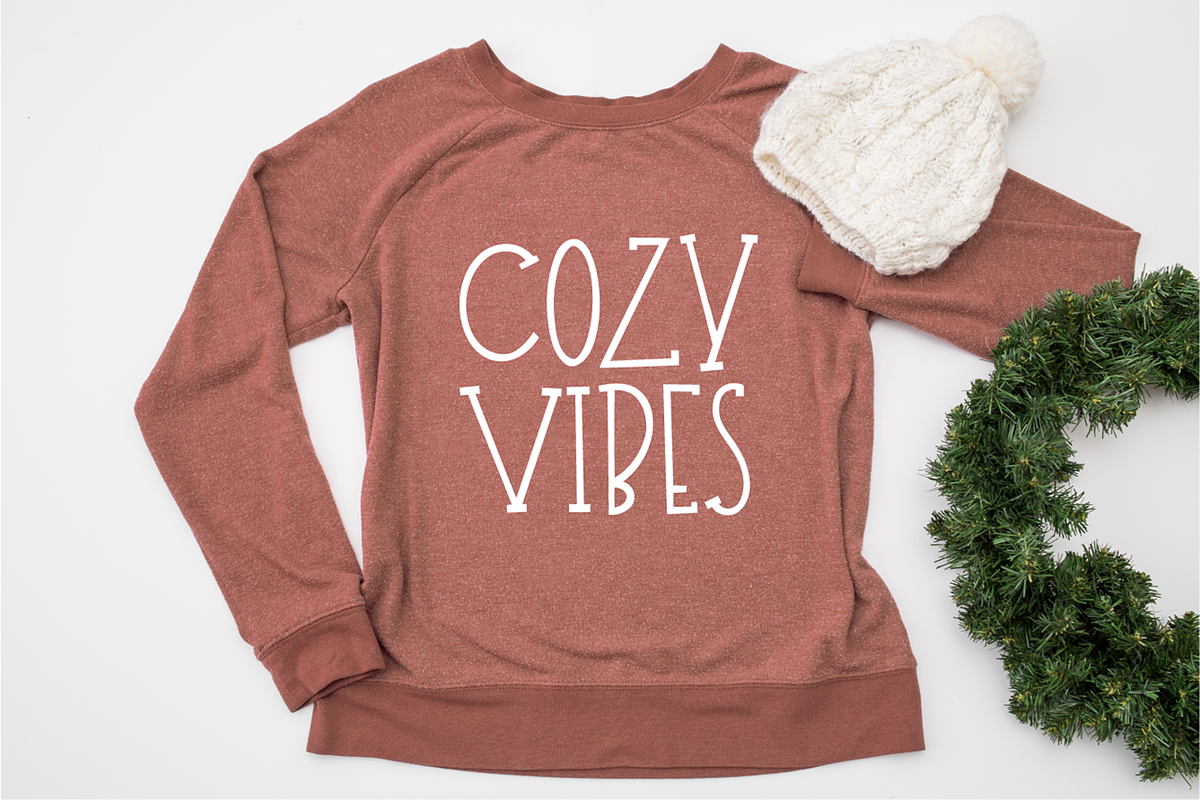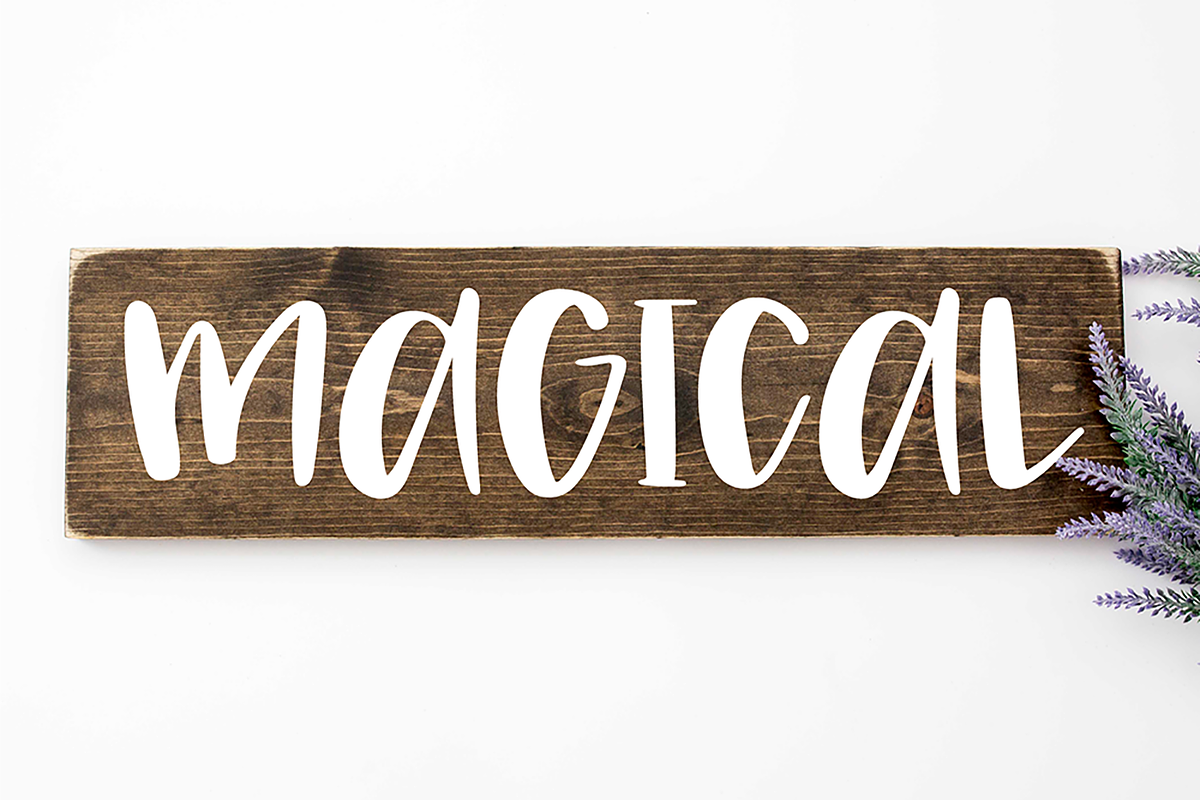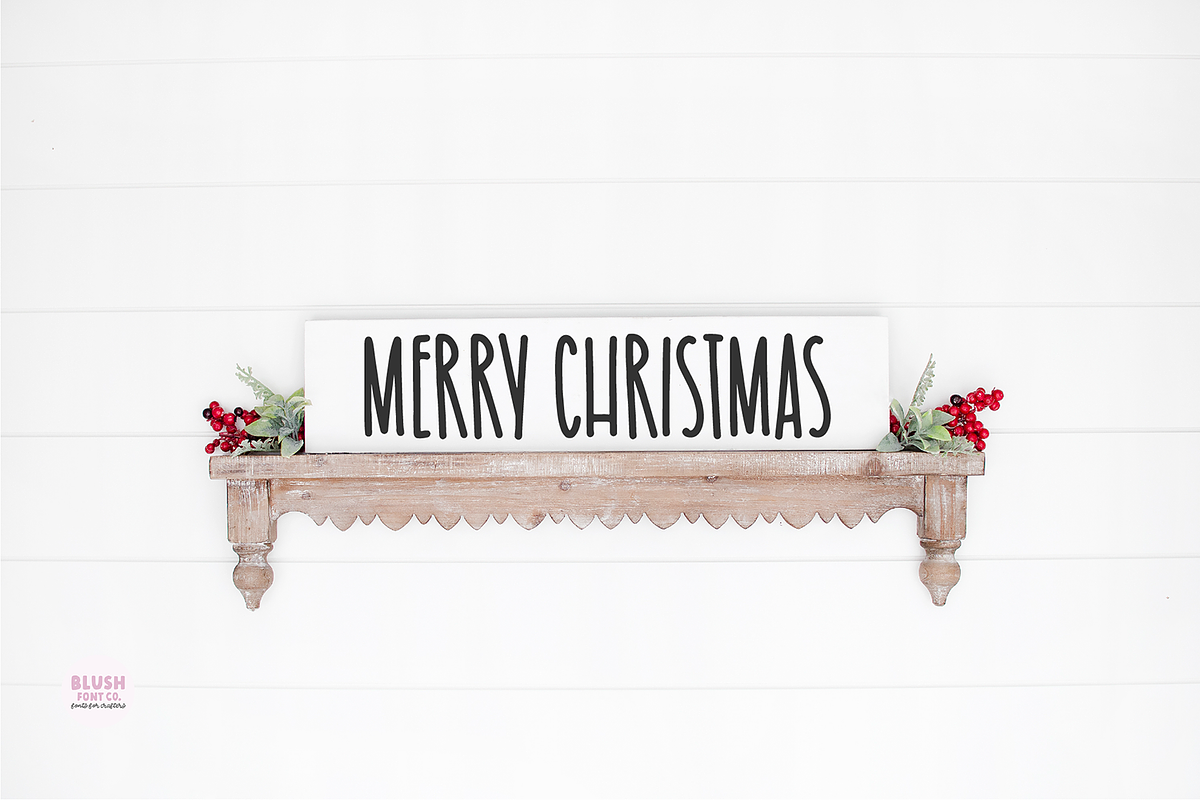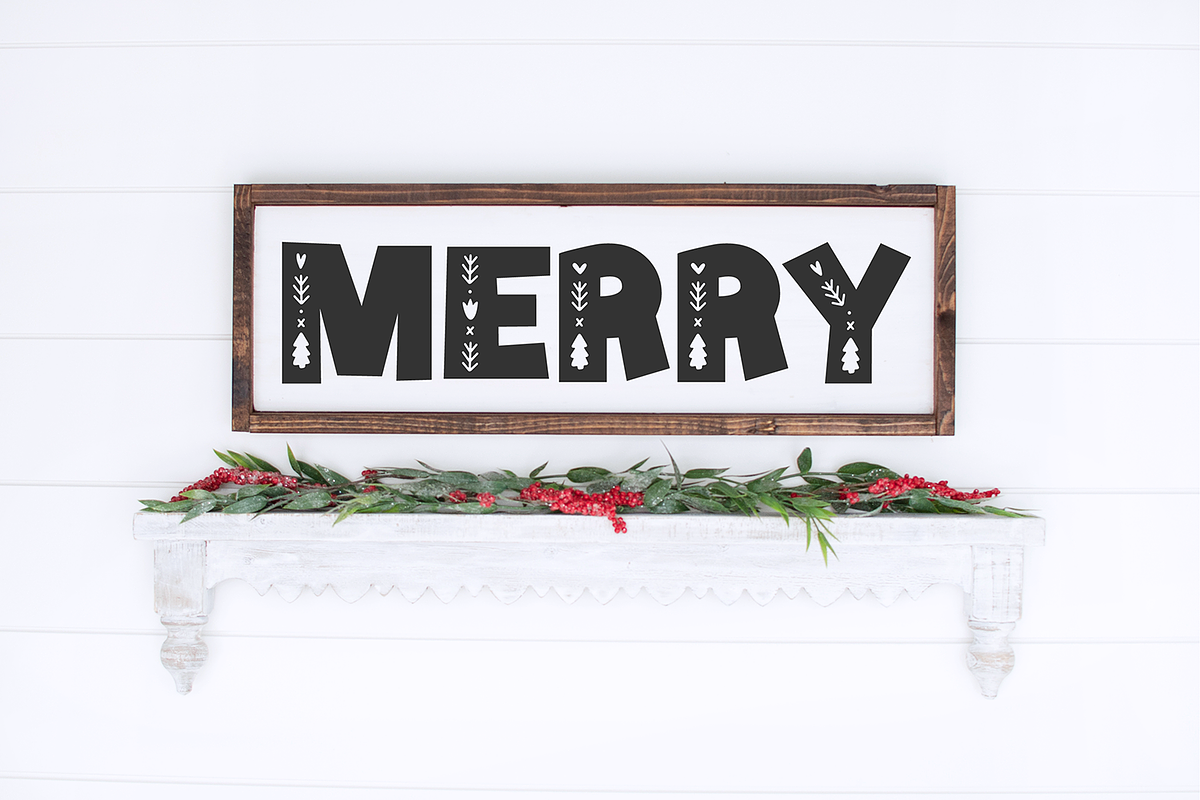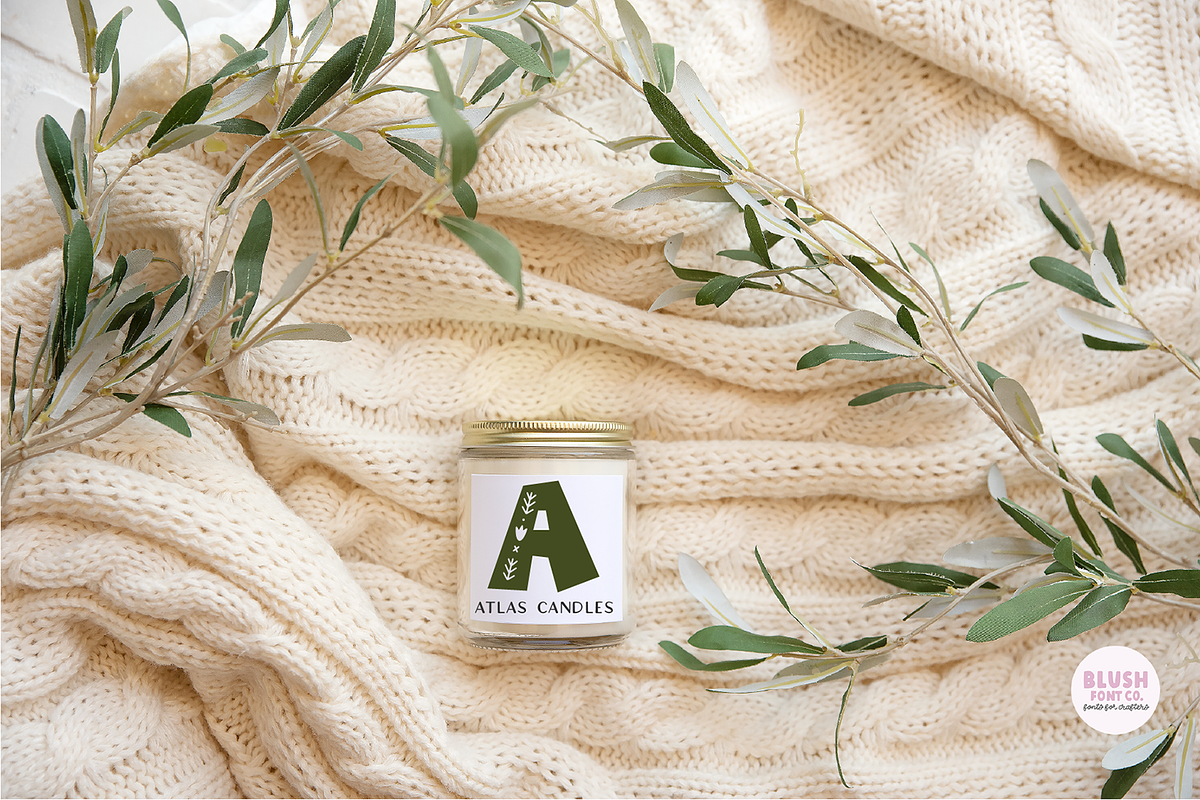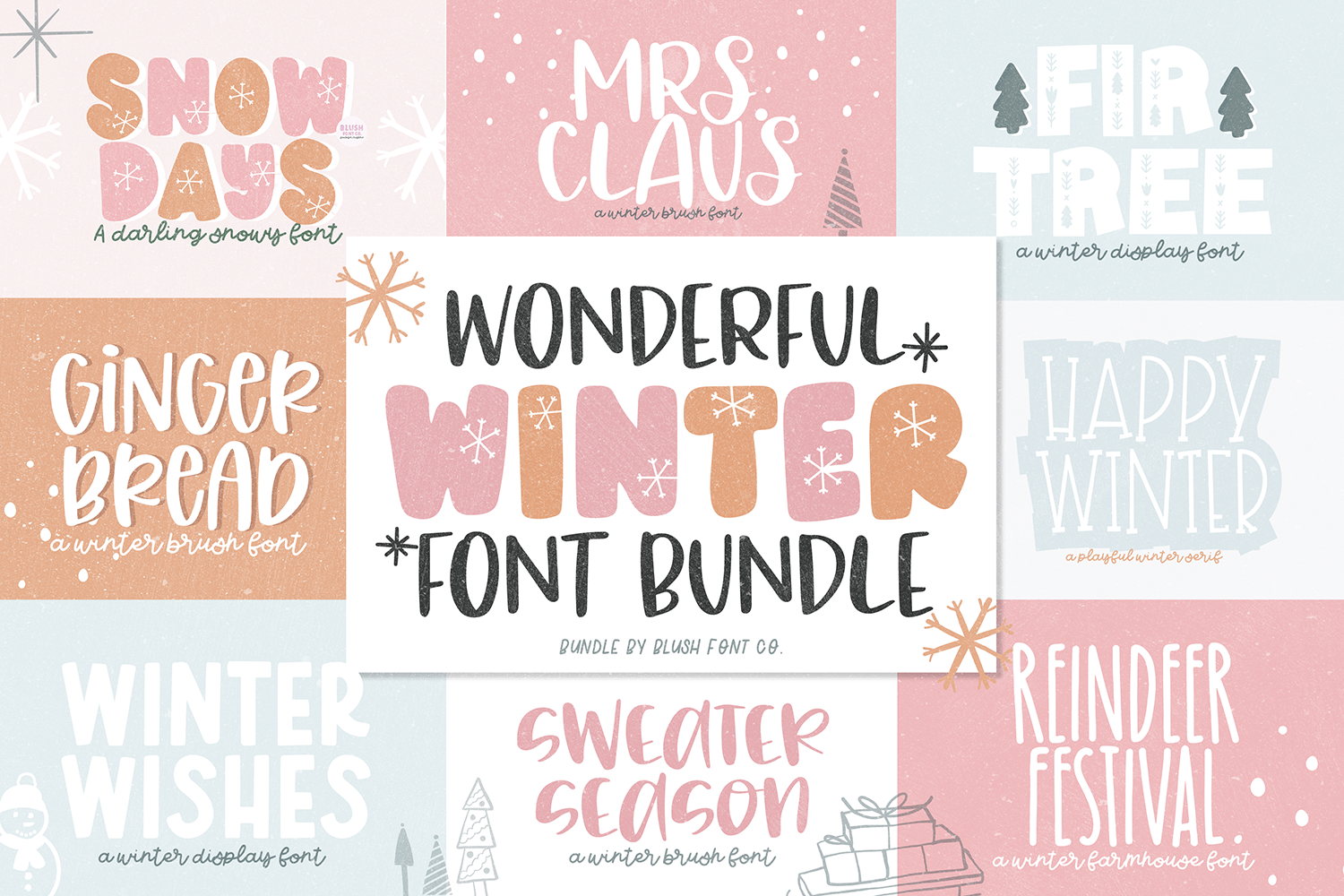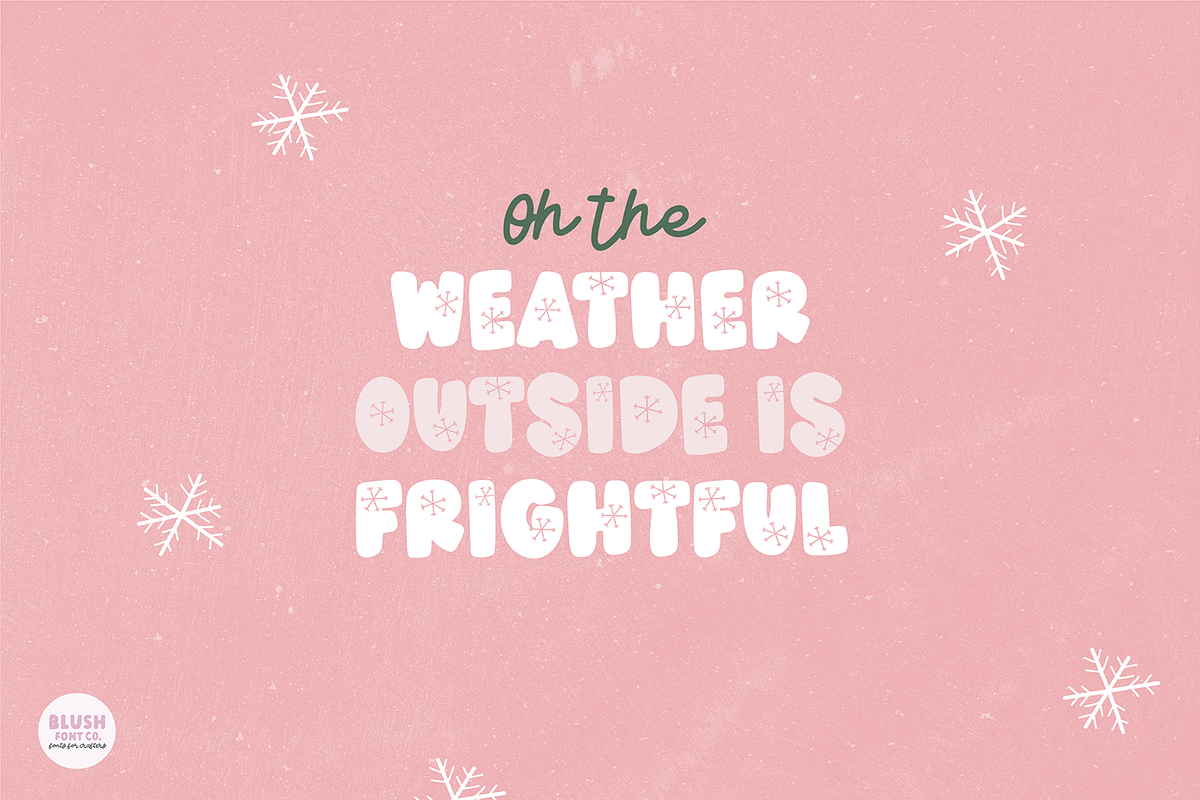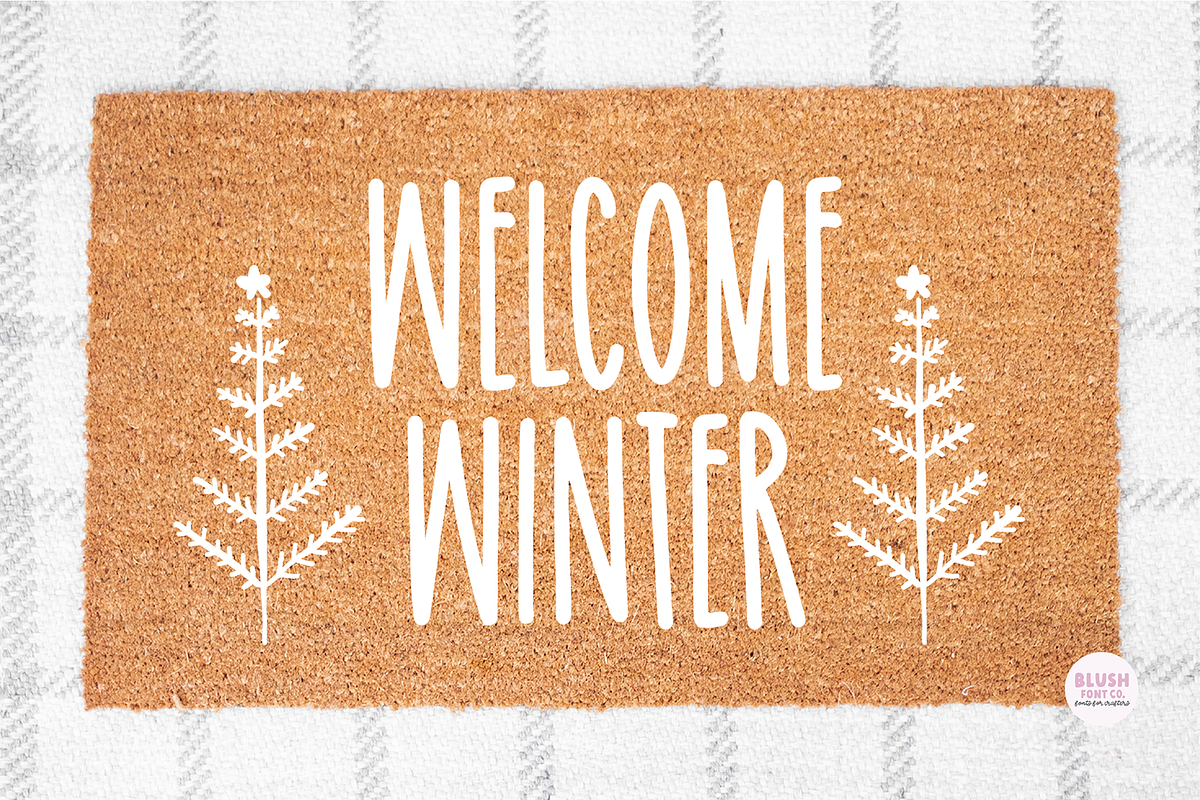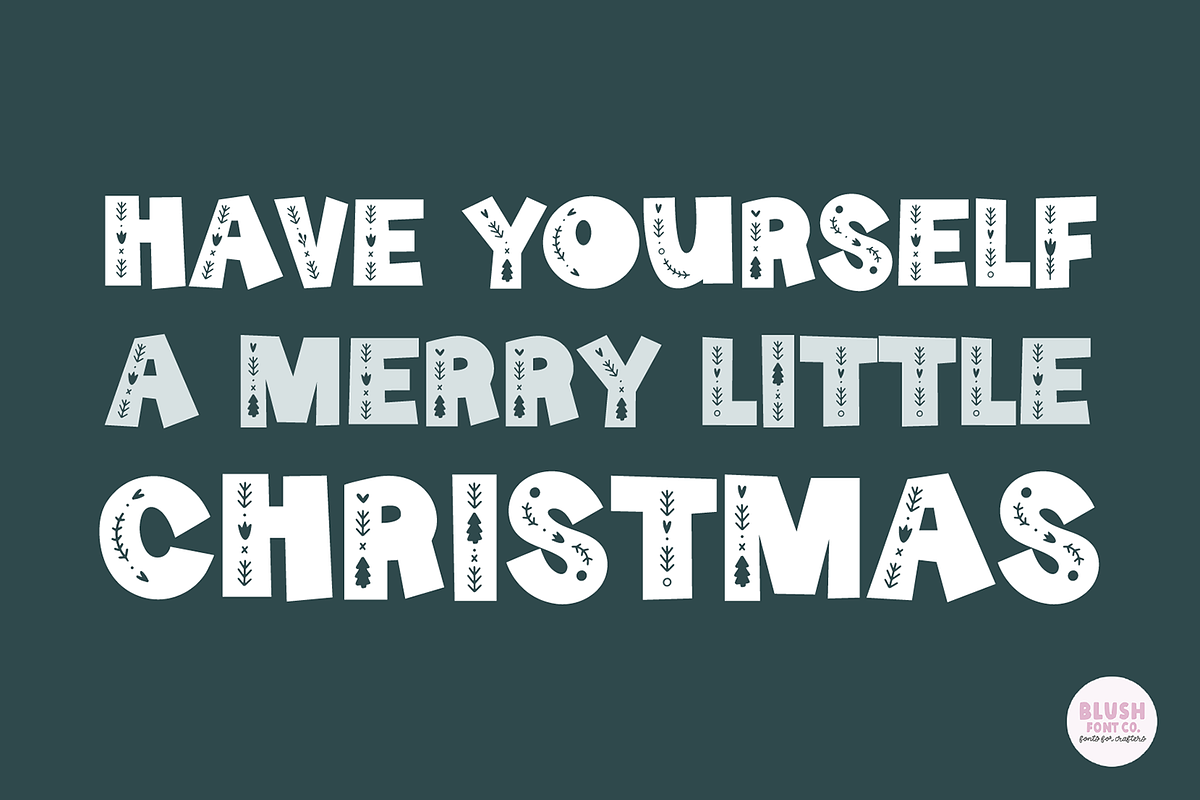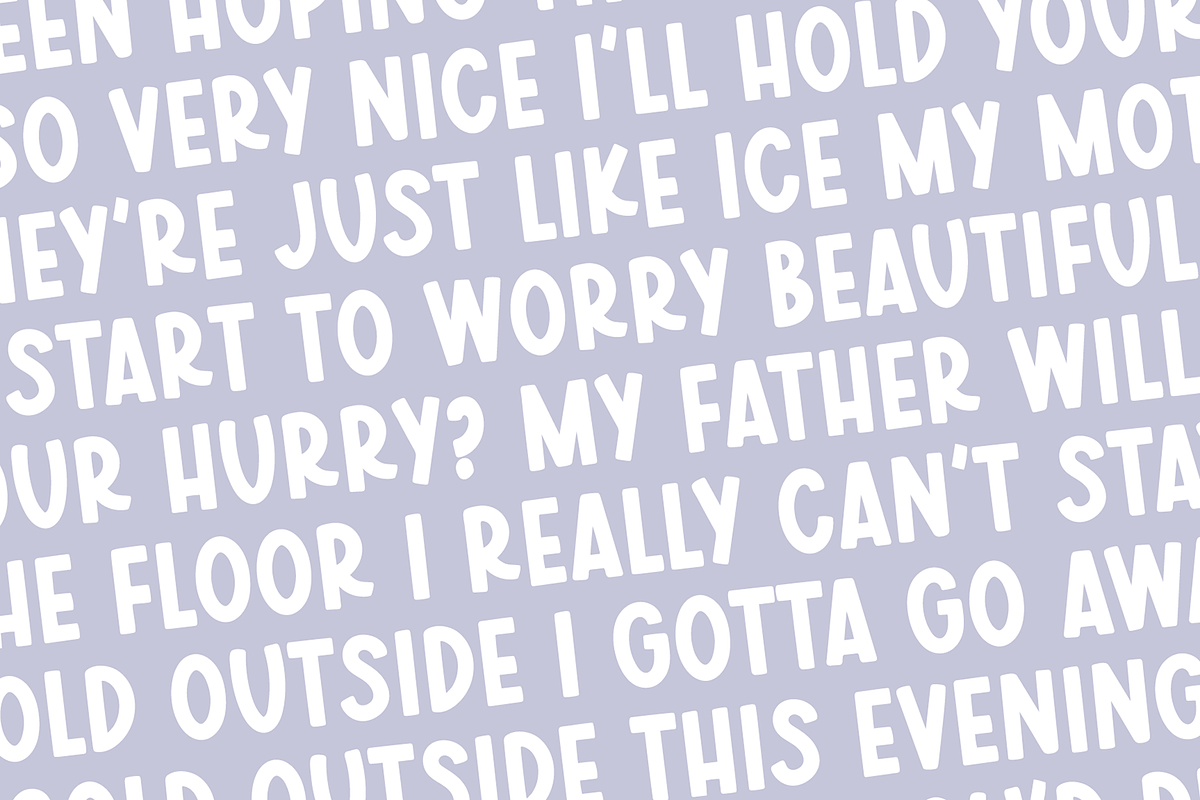
WONDERFUL WINTER Font Bundle
The Wonderful Winter bundle is here! Grab these 8 FUN winter fonts in one download! These fonts are going to be perfect for all of your cute Christmas and winter crafts, like decor, sweaters, and party invitations!
The 8 fonts included are:
GINGERBREAD SWEATER SEASON FIR TREE SNOW DAYS REINDEER FESTIVAL WINTER WISHES HAPPY WINTER MRS CLAUS